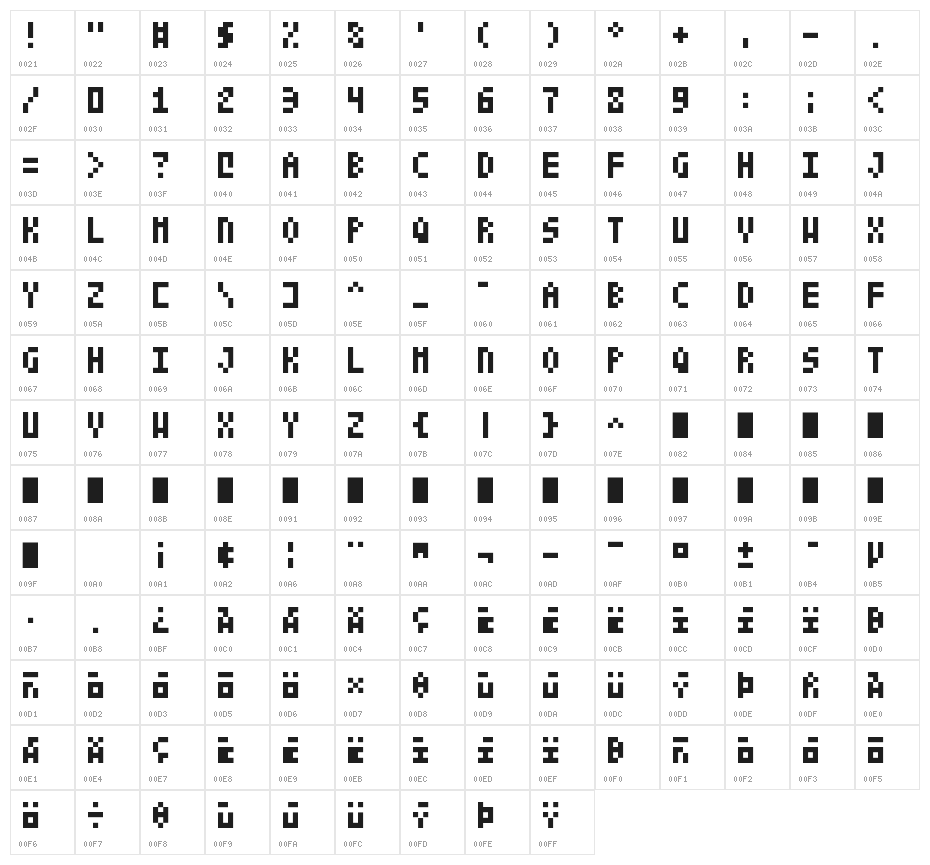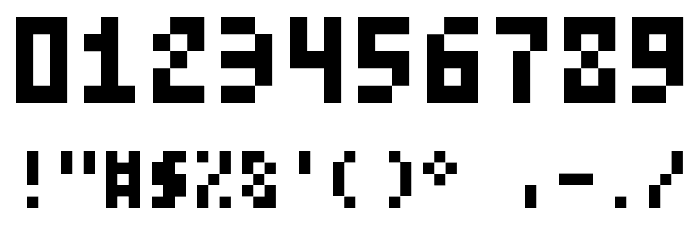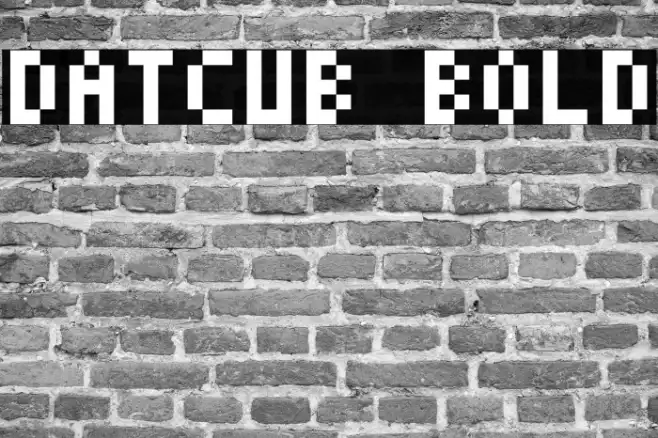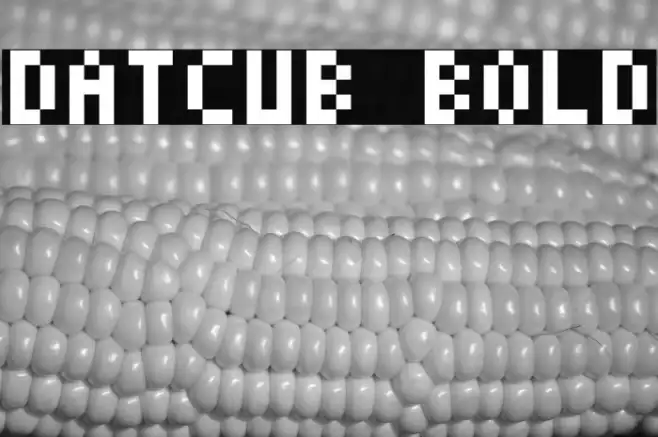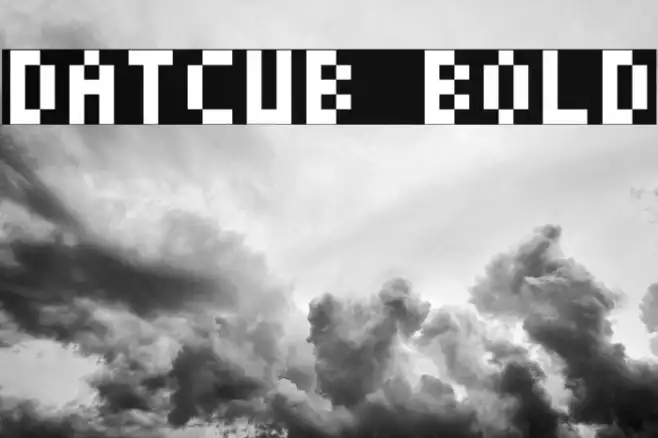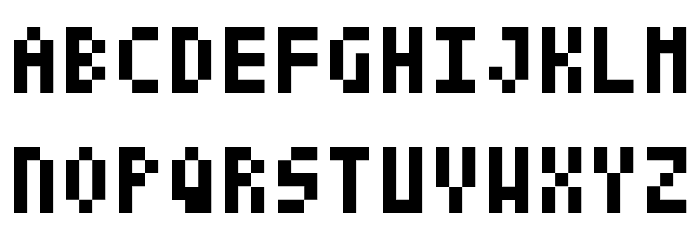
DatCub Bold Font
DatCub Bold Description
This font features a bold, blocky design with a distinctly pixelated aesthetic, reminiscent of early digital displays and retro video games. Each character is constructed with sharp, angular edges and uniform line thickness, creating a cohesive and structured appearance. The uppercase and lowercase letters maintain a consistent height, contributing to a monospaced feel, although the font is not strictly monospaced. The numerals and special characters follow the same stylistic approach, ensuring visual harmony across all glyphs. This font's geometric simplicity and bold presence make it ideal for projects that require a strong, digital-inspired look.